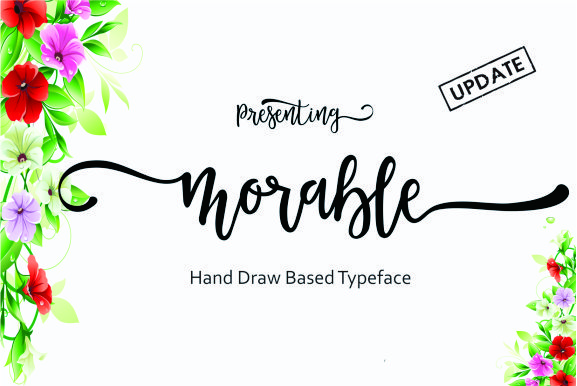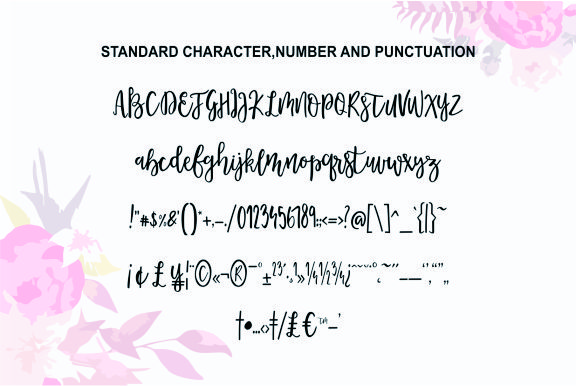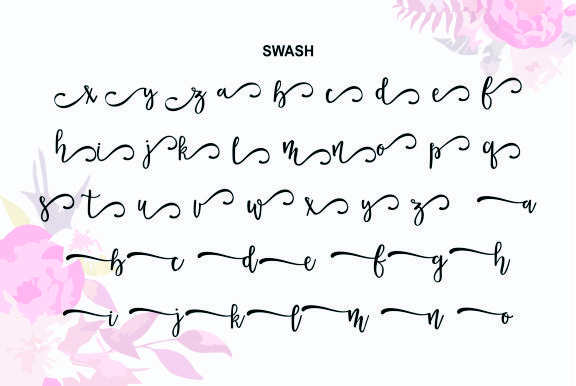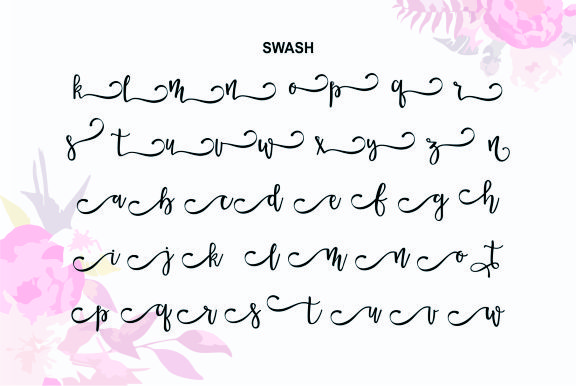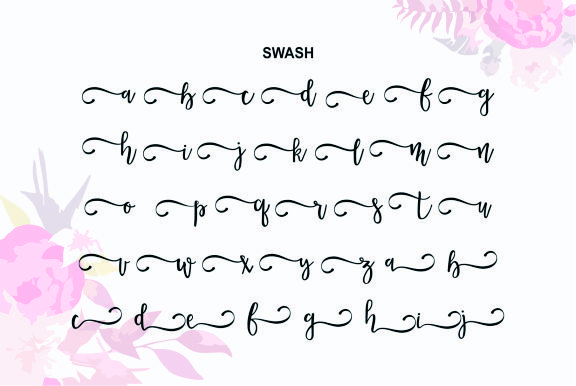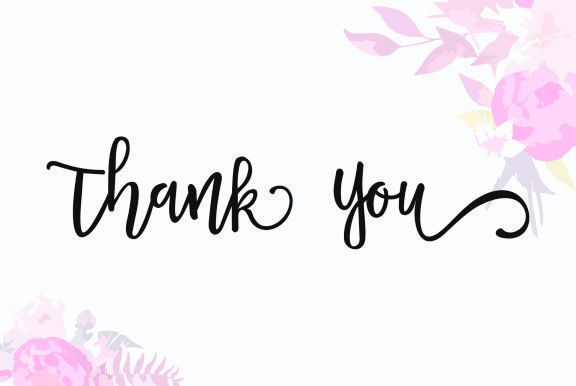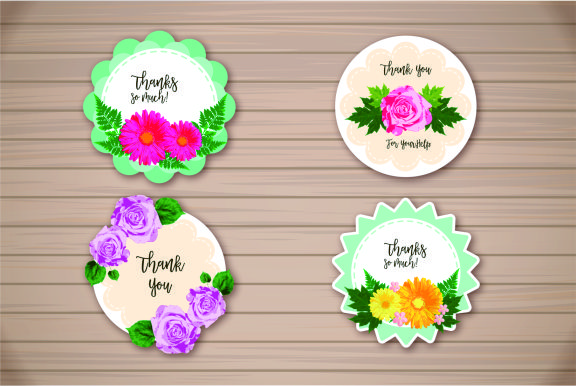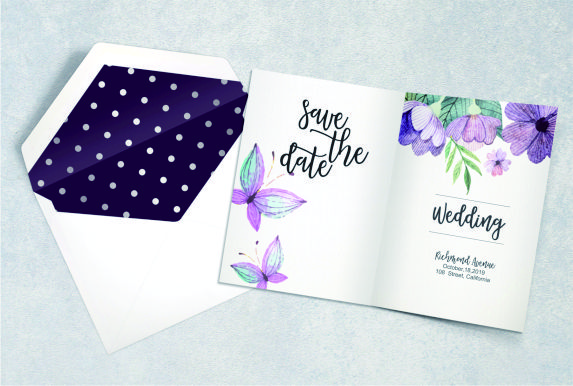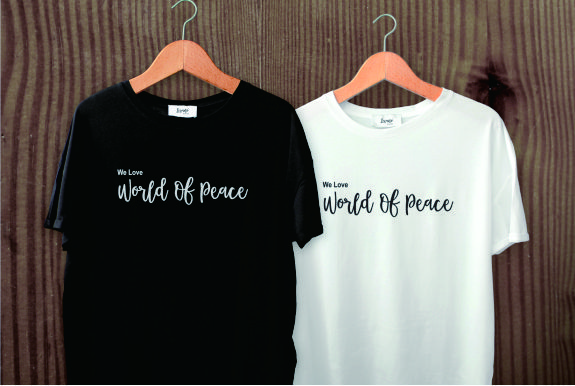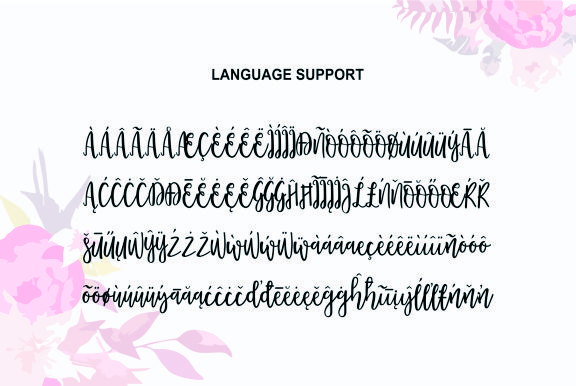
Morable Font
About Morable Font
Morable is a modern hand-based typeset. This trendy and alluring handwritten script is wonderful for anchoring your designs in a warm and inviting manner.